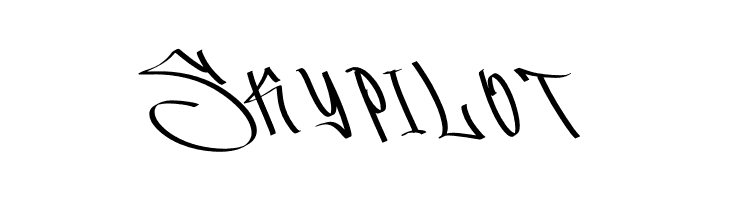
( Fonts by Ferry Ardana Putra )
A decorative and artistic font with sharp, angular lines and dynamic flow.
( Fonts by Jonathan Harris - www.tattoowoo.com )
A tall, narrow, hand-drawn font with an organic, rough texture.
A bold, expressive handwritten font with dynamic strokes.
( madeDeduk )
A bold, energetic script font with a hand-drawn, dynamic style.
( madeDeduk )
A bold and expressive handwritten font with dynamic strokes and tight spacing.
A flowing, cursive font with elegant loops and swashes, perfect for artistic projects.
( PutraCetol Studio - Putra Novembria Candra Kusuma - creativemarket.com/putracetol )
A playful, whimsical script font with smooth, flowing lines and a handwritten feel.